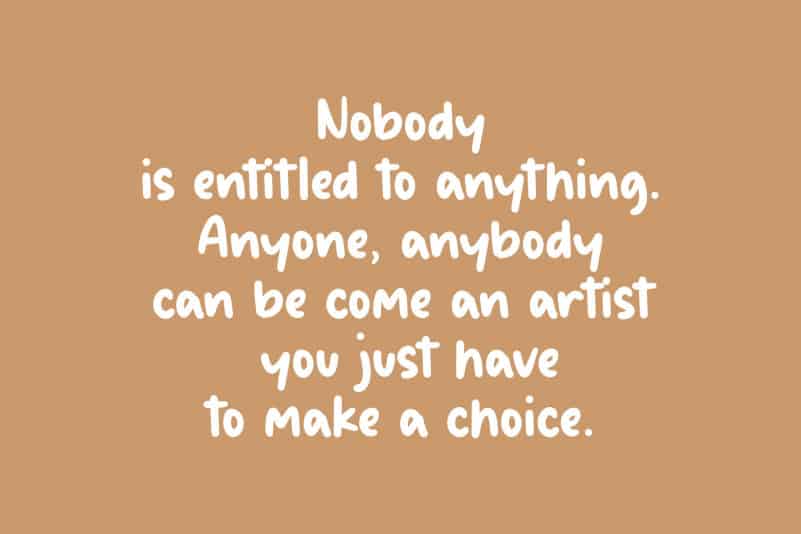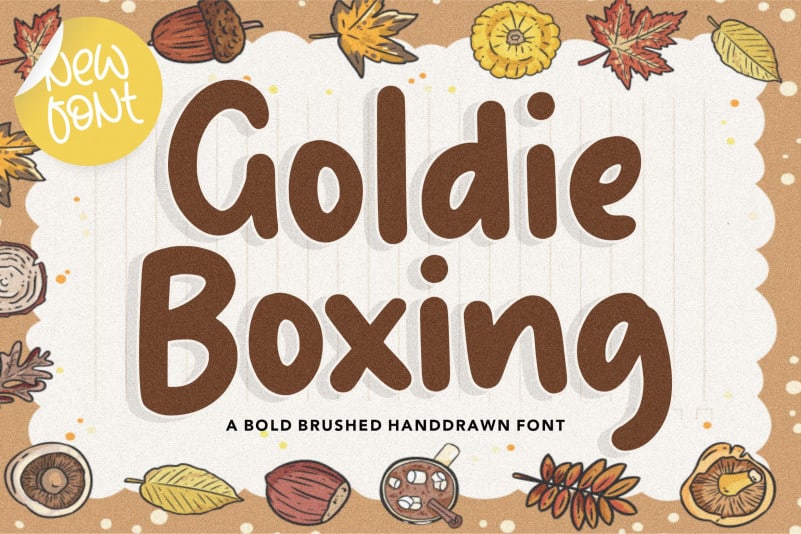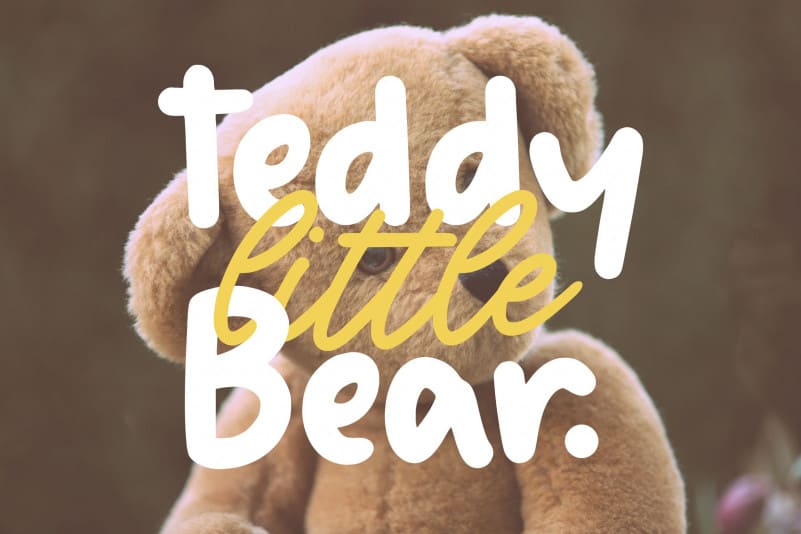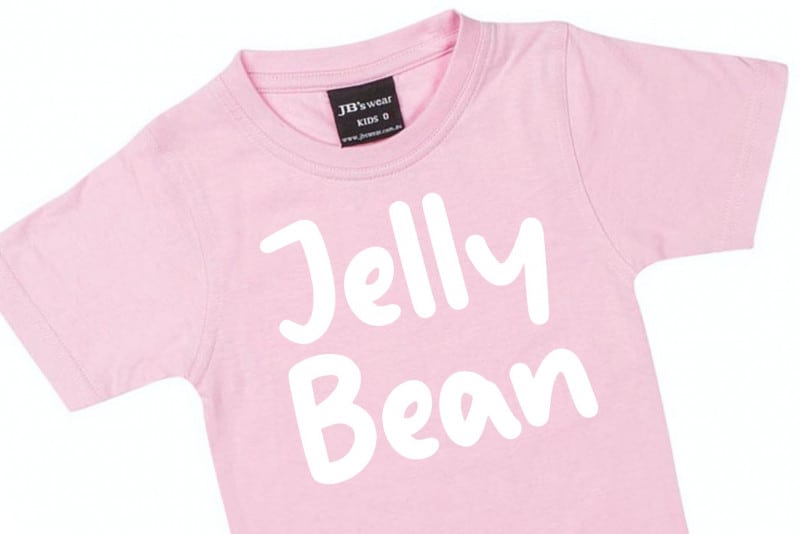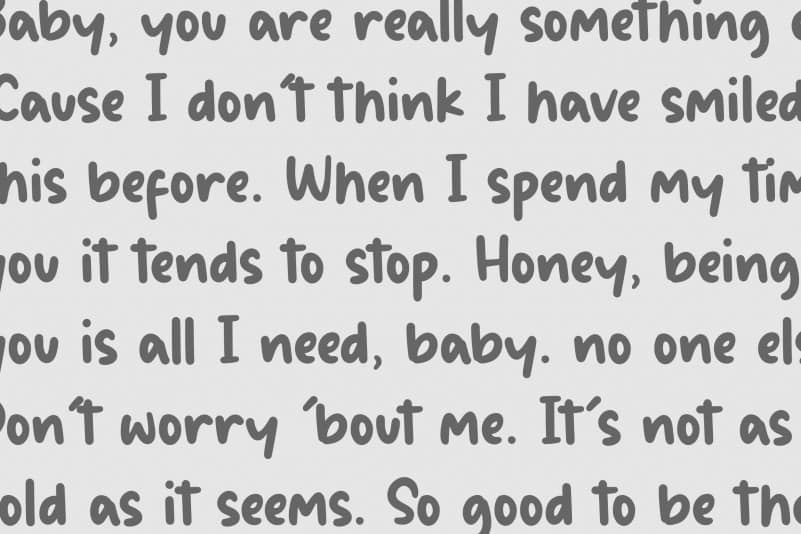
Goldie Boxing Brushed Handdrawn Font
Proudly Present, Goldie Boxing Brushed Handdrawn Font.
Goldie Boxing is a Bold Brushed Handdrawn Font.
Goldie Boxing is perfect for product packaging, branding project, megazine, social media, wedding, or just used to express words above the background.